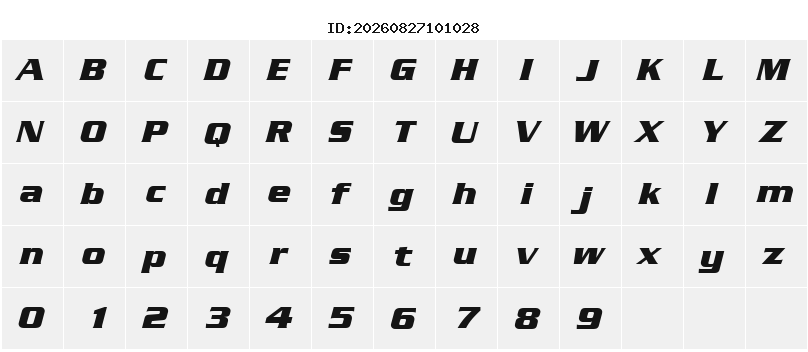
316-CAI978 Preview
• Font Name: 316-CAI978
About 316-CAI978.ttf
316-CAI978.ttf is a modern, elegant sans-serif font designed for ultimate readability and visual harmony. Perfect for branding, headlines, web design, and print materials.